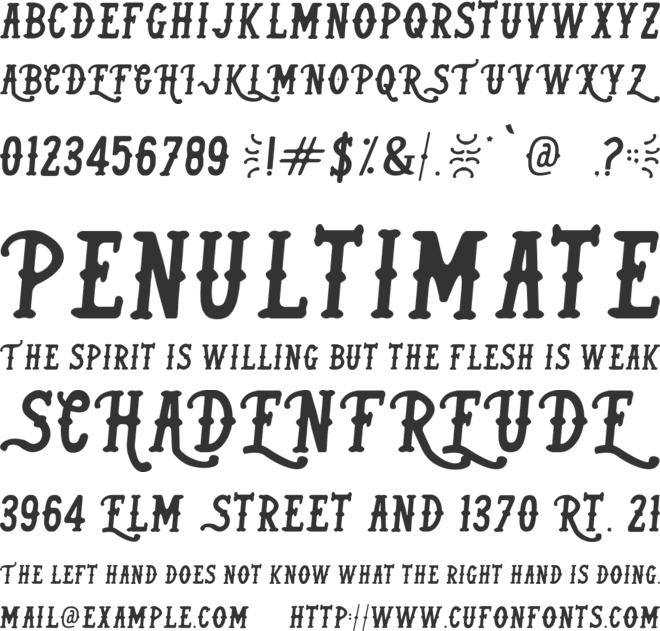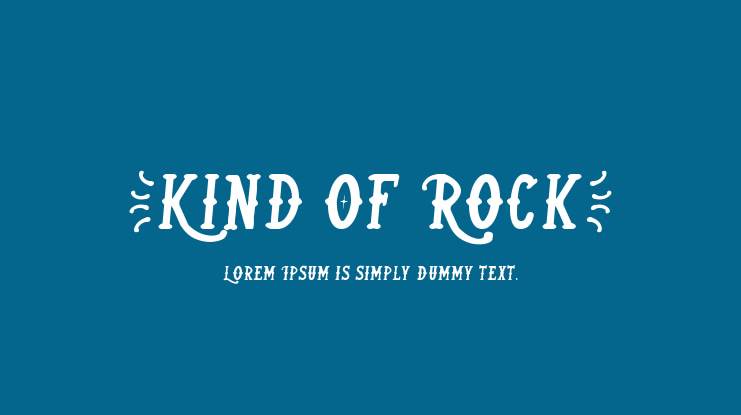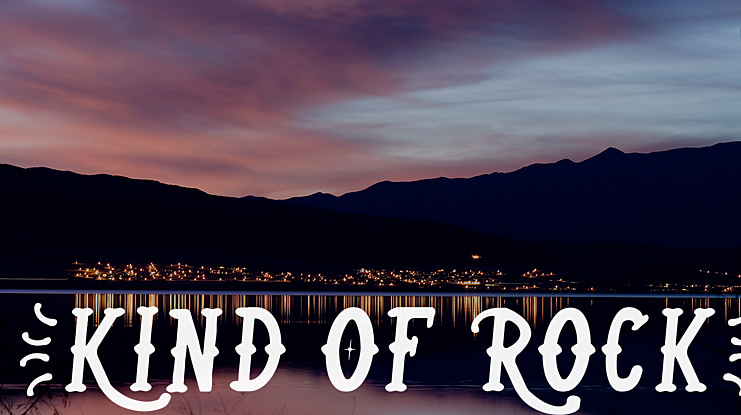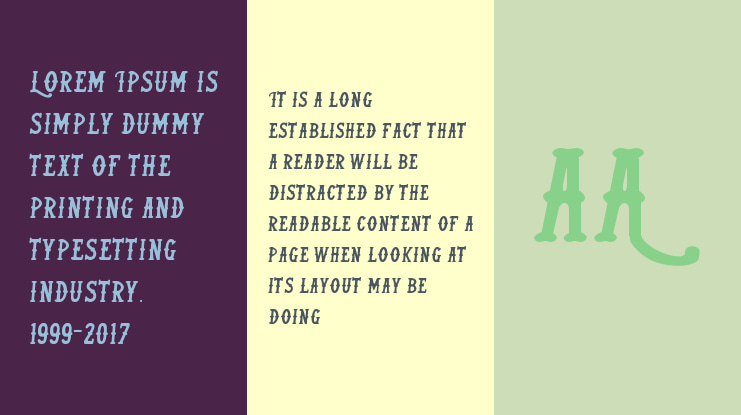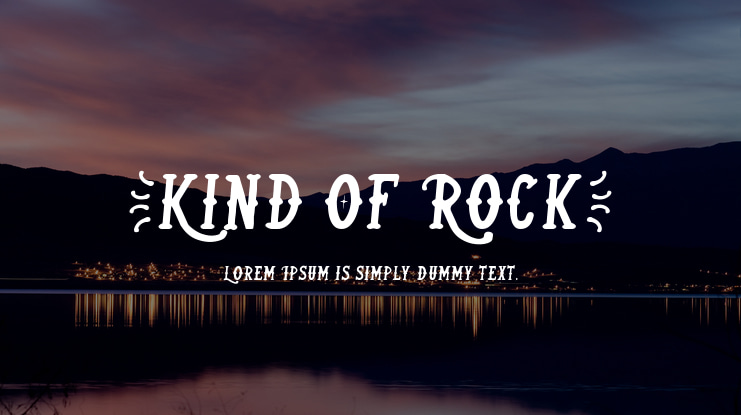
(Kind Of Rock) Font Family
Introducing our new release, Kind Of Rock Vintage Typeface Font. This typeset is perfect for brand logo, invitations, greeting card, or even any kind of project. With multilingual feature and style variations, this typeface would further enhance the aestethical aspect of your work.